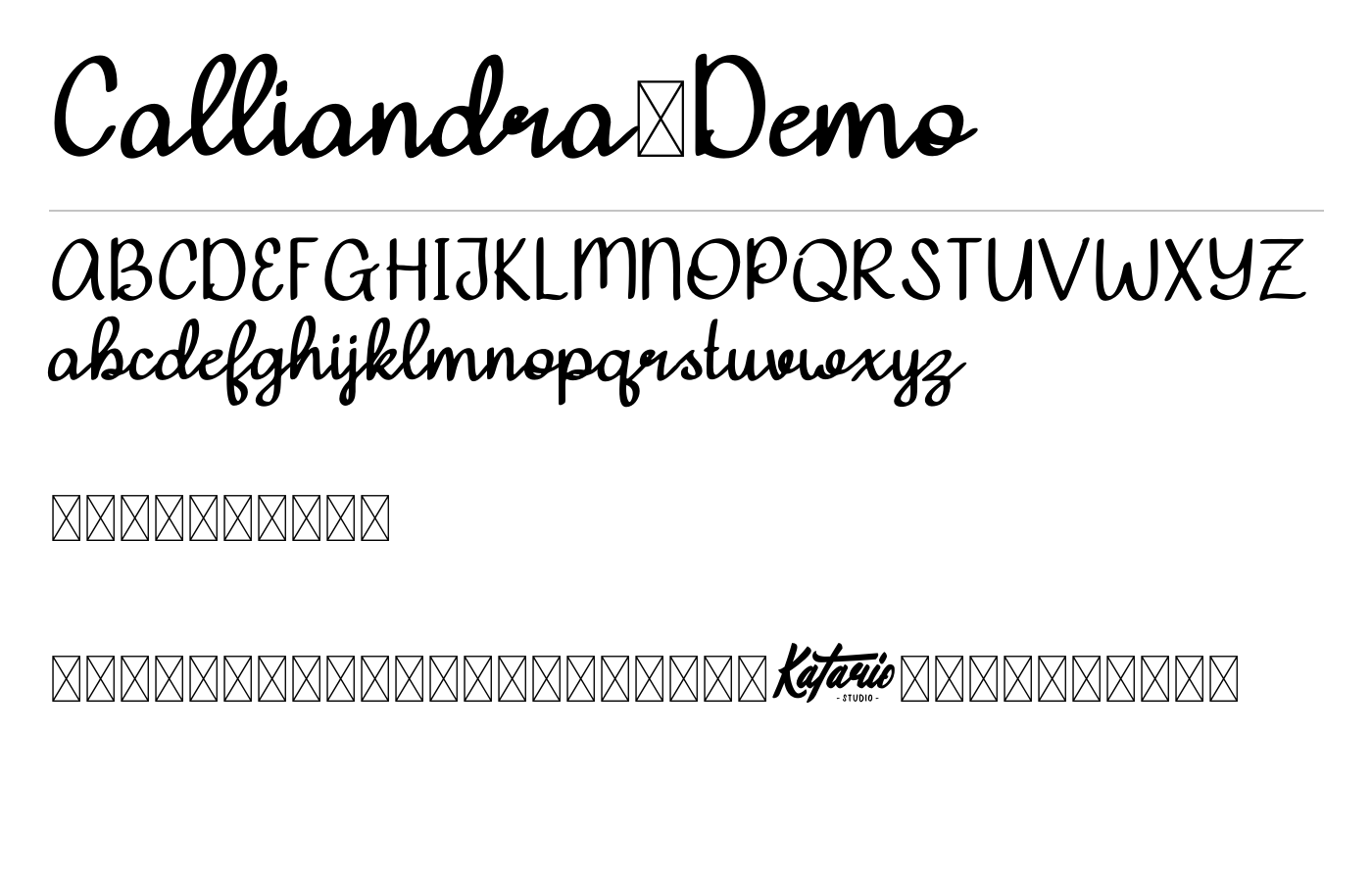
Calliandra-Demo is a lively, hand-drawn script font with a casual and friendly feel. Its smooth, flowing strokes and slightly irregular letterforms create a warm and approachable style, making it perfect for creative branding, invitations, and playful editorial designs. This font works well when you want to add a personal, handmade touch to your projects while maintaining readability and charm.
Calliandra-Demo Font
About Calliandra-Demo Font
| Font family | Calliandra-Demo Font |
| Designer | Rioniga Zandy |